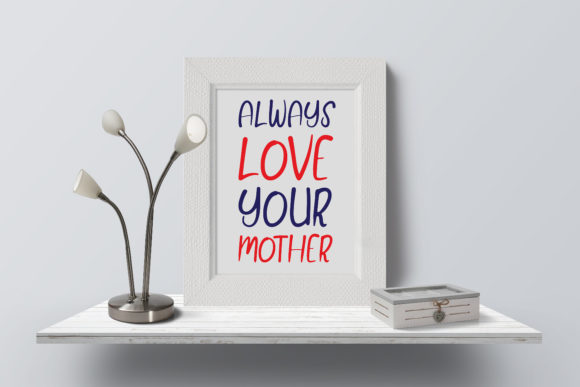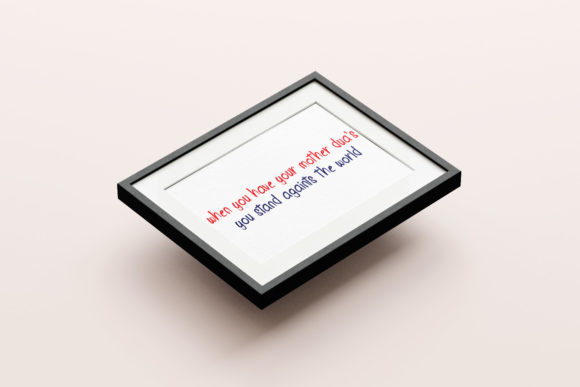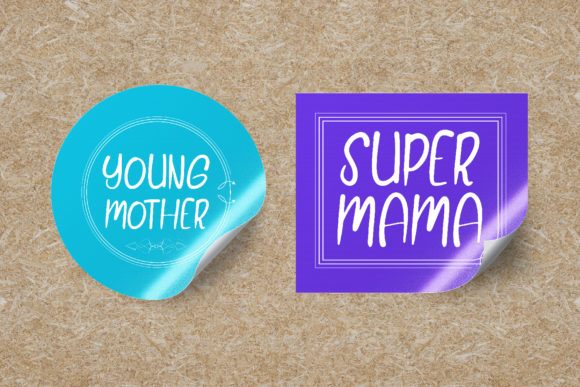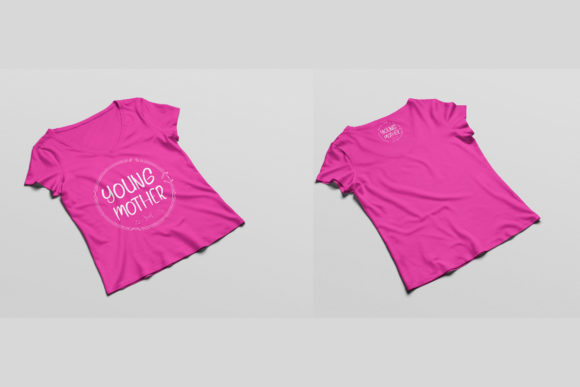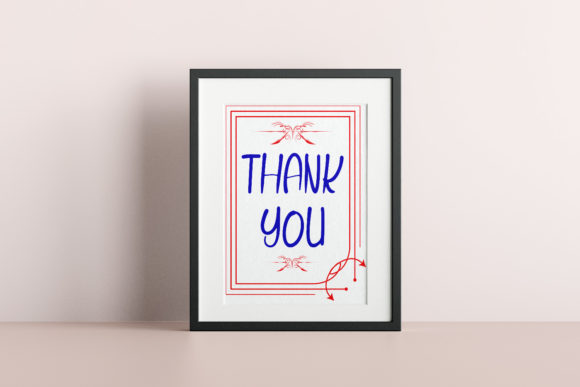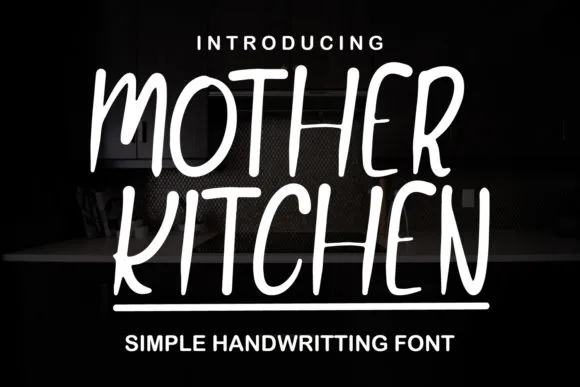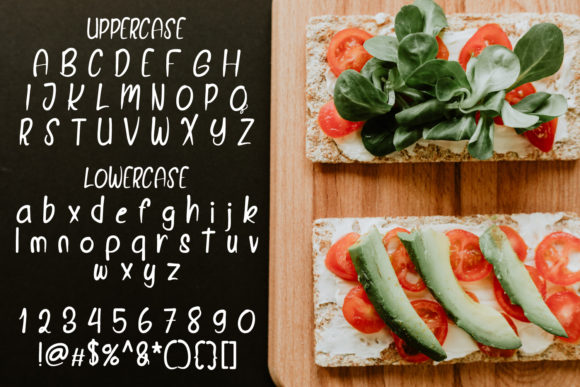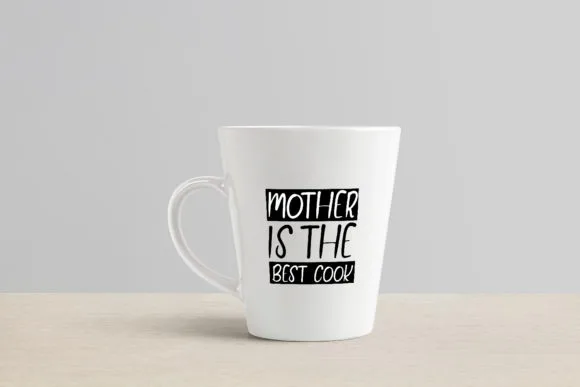
Mother Kitchen Font
About Mother Kitchen Font
Mother Kitchen is a simple and cute handwritten font. Warm, romantic and jolly, this font will turn each of your project ideas into real works of art. Have fun with this beautiful font and explore its endless variations.